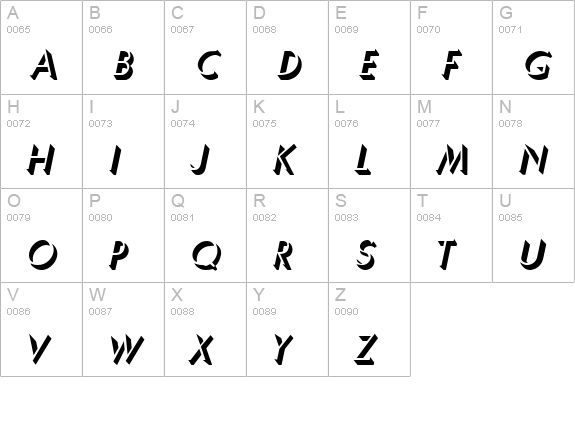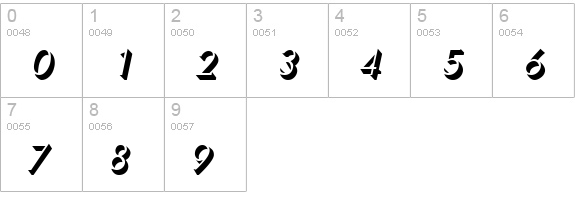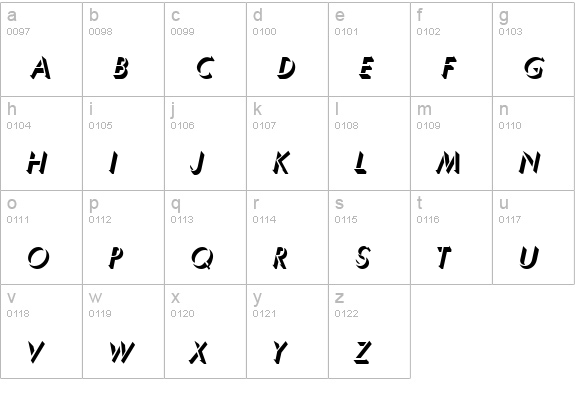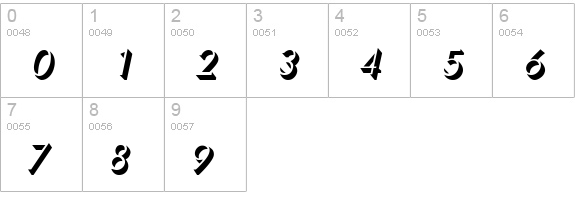
UltraShadow Italic Font Details
UltraShadow Italic is a distinctive, italic variant in the UltraShadow typeface family \xE2\x80\x94 well suited to design and typography projects.
Introducing UltraShadow Italic, a font that effortlessly combines elegance and edginess in every stroke. This captivating typeface is perfect for those seeking to add a touch of mystery and sophistication to their designs. With its sleek and slanted italic form, UltraShadow Italic exudes a sense of dynamic movement, drawing the eye and commanding attention. Its unique shadow effect adds depth and dimension, creating a visually striking impression that is sure to leave a lasting impact. Designed with versatility in mind, UltraShadow Italic is ideal for a wide range of creative projects. Whether you're designing a logo, crafting an eye-catching headline, or creating stylish invitations, this font provides endless possibilities for expressing your creativity. One of the greatest features of UltraShadow Italic is that it is absolutely free! That's right, this remarkable font is freely available to download at FontsMarket.com. Now, you can elevate your designs without breaking the bank, as this font offers a high-quality and professional aesthetic at no cost. Don't miss out on the opportunity to enhance your design toolkit with UltraShadow Italic. Download it today from FontsMarket.com and unlock a world of possibilities for your next project.